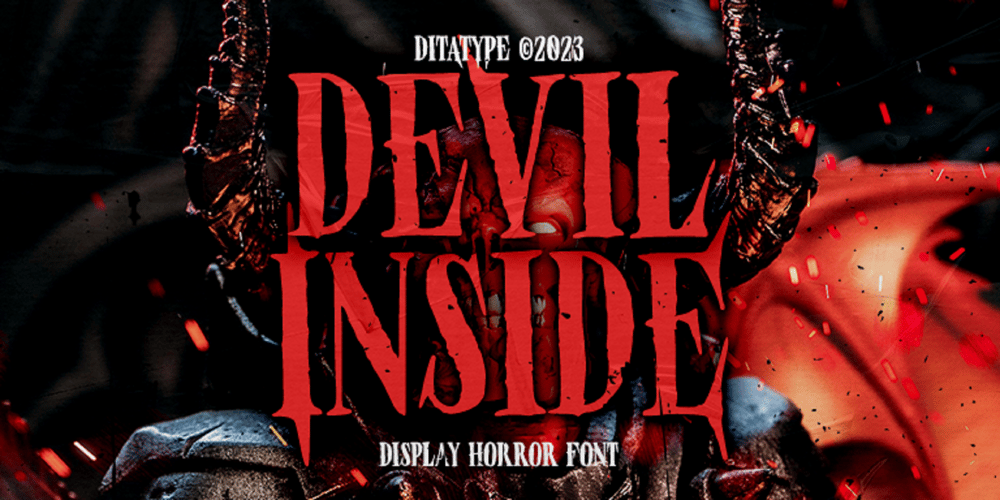
Devil Inside Font Family was designed by Donis Miftahudin and published by Ditatype. Devil Inside contains 1 styles and family package options. Devil Inside is a spine-chilling display font that will send shivers down your spine. Designed in a large, bold font, this typeface demands attention and exudes an aura of darkness. Each letter is meticulously crafted with a square shape, high contrast, and haunting brush details, adding an eerie and sinister touch to the font. The large size of the letters enhances the font’s ominous presence, making it impossible to ignore. The square shape of each letter adds a sense of rigidity and sharpness, while the high contrast brings an element of drama and intensity. These design choices contribute to the font’s unsettling and sinister look, immersing the viewer into a world of darkness and fear. The brush details in Devil Inside give the font an organic and handcrafted appearance, as if it were inscribed with ancient symbols by a malevolent force. These haunting details add a sense of craftsmanship and enigma, creating an atmosphere of mystery and foreboding. For the best legibility you can use this font in the bigger text sizes. Enjoy the available features here.Features: Alternates Multilingual Supports PUA Encoded Numerals and Punctuations Devil Inside fits in headlines, logos, movie posters, flyers, invitations, branding materials, print media, editorial layouts, headers, and any horror-themed project. Find out more ways to use this font by taking a look at the font preview.Thanks for purchasing our fonts. Hopefully, you have a great time using our font. Feel free to contact us anytime for further information or when you have trouble with the font. Thanks a lot and happy designing.